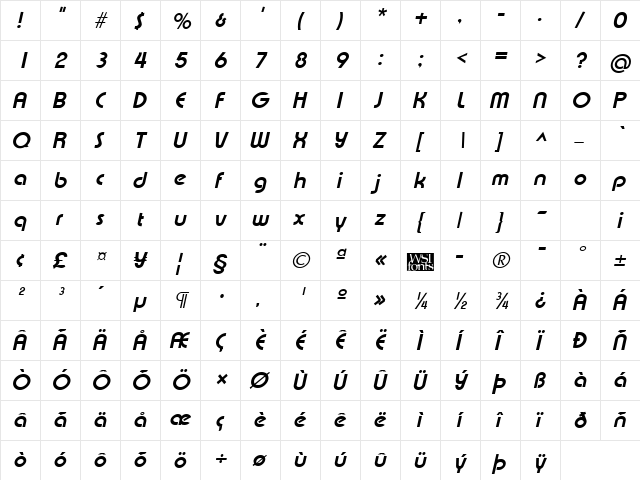
Xpressive Bold Italic Font Preview
Design Context for Xpressive Typeface
Xpressive takes a measured approach to typography — its balanced proportions and neutral character make it a reliable workhorse for both digital and print work. Its italic angle brings a sense of urgency and motion to the letterforms. The heavy weight commands attention and anchors typographic hierarchies.